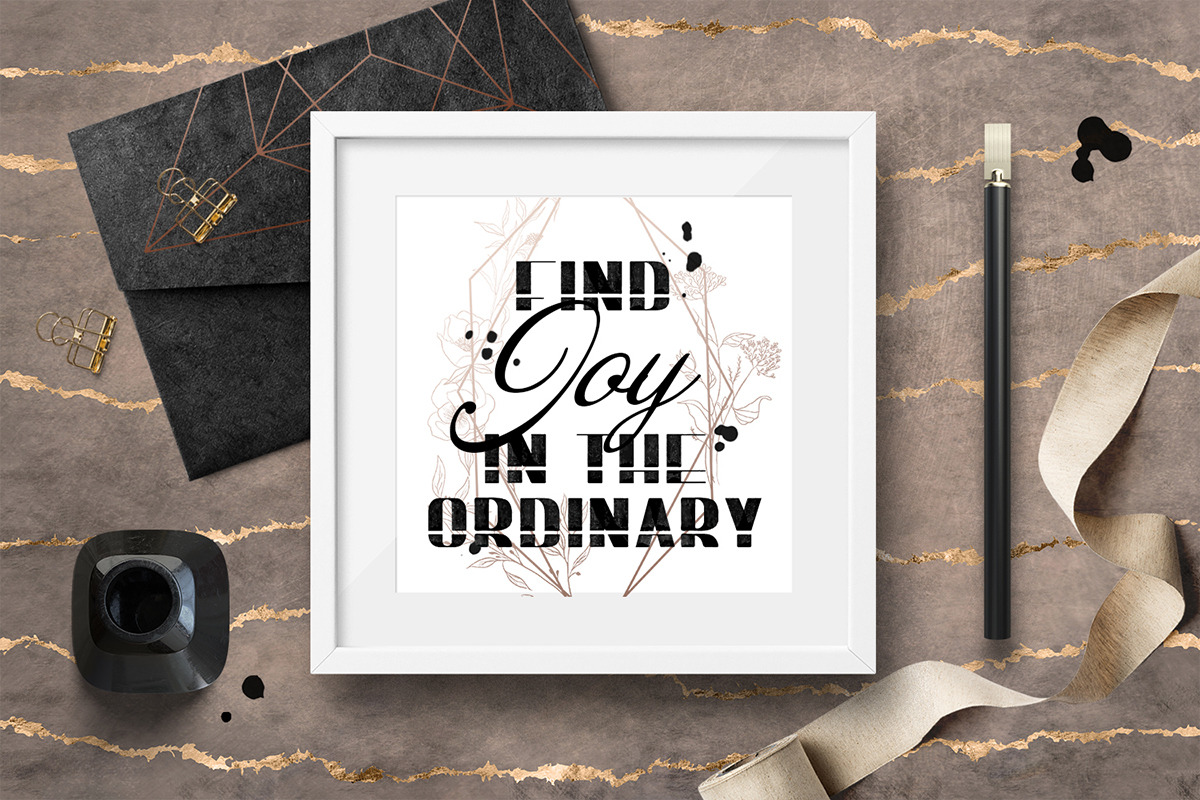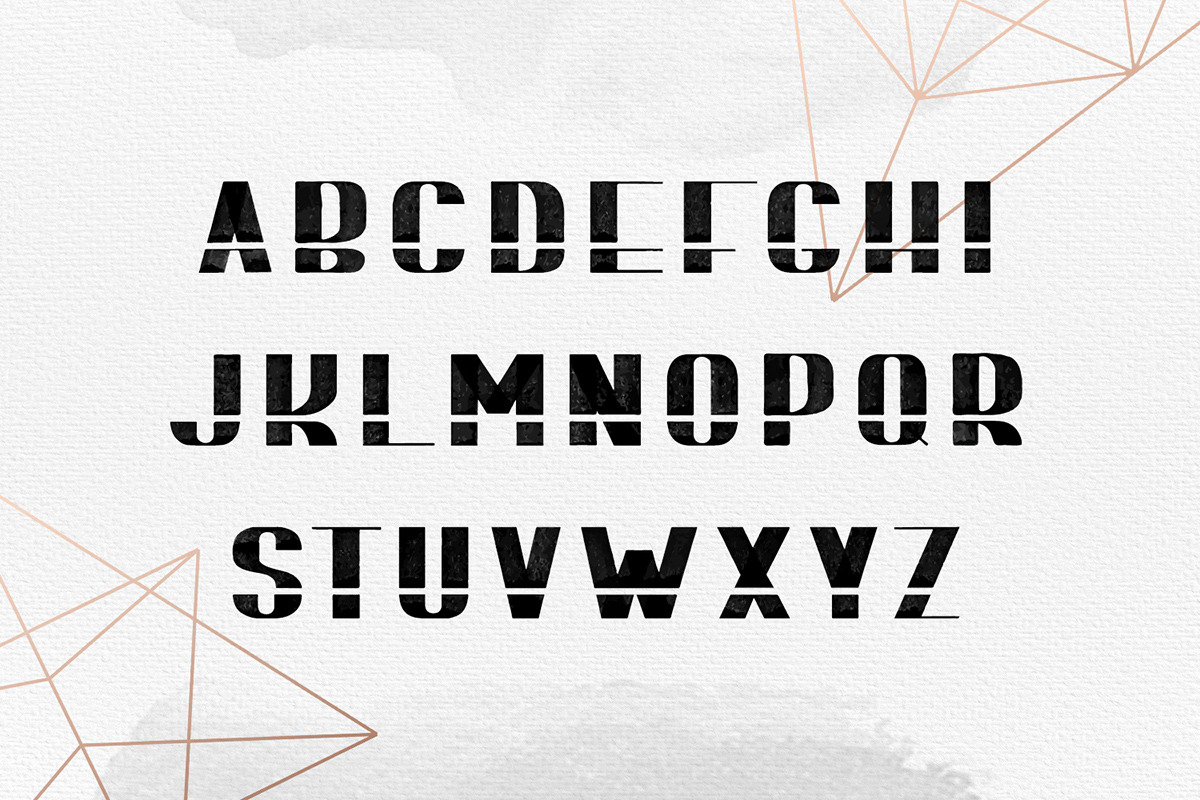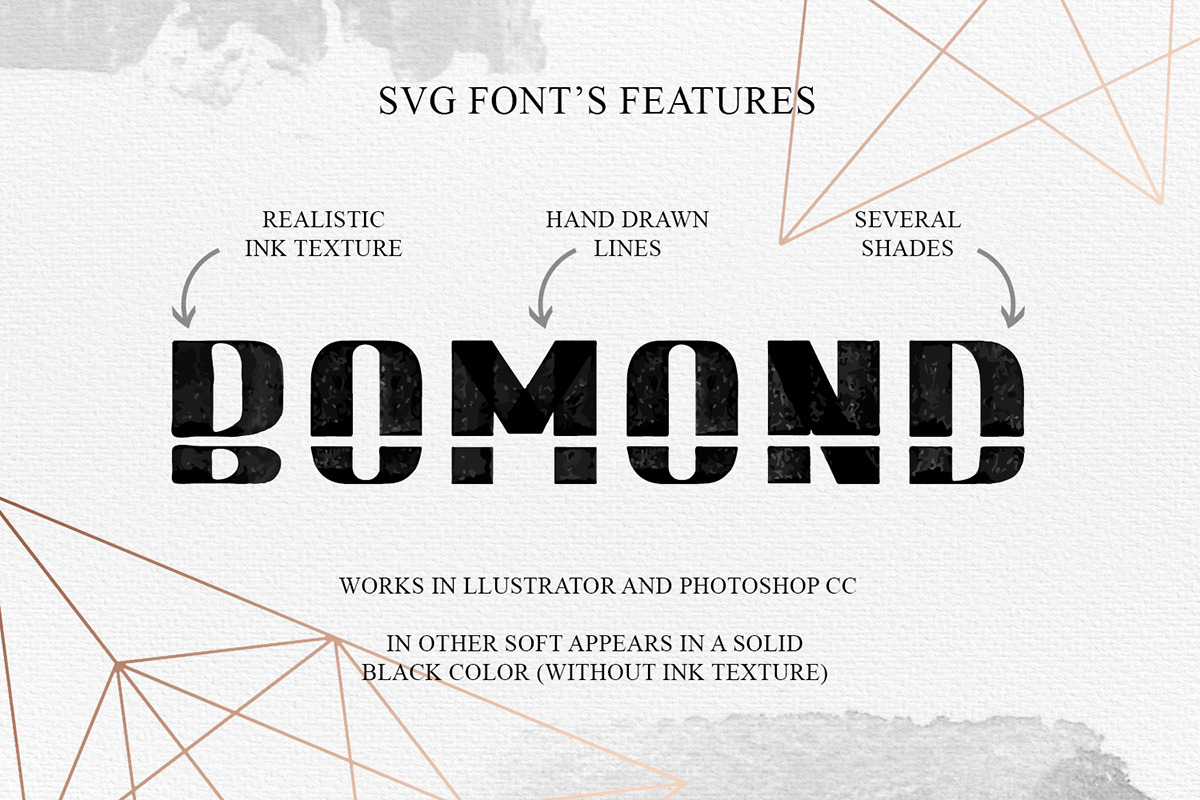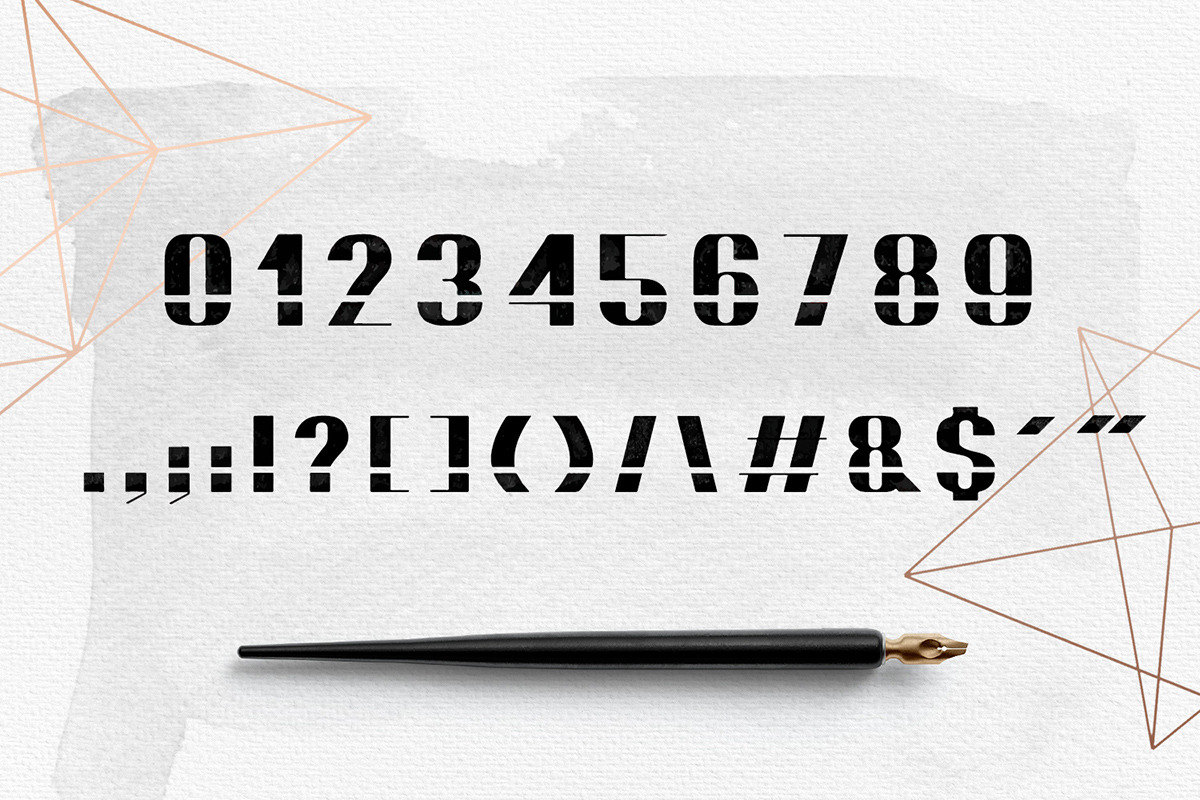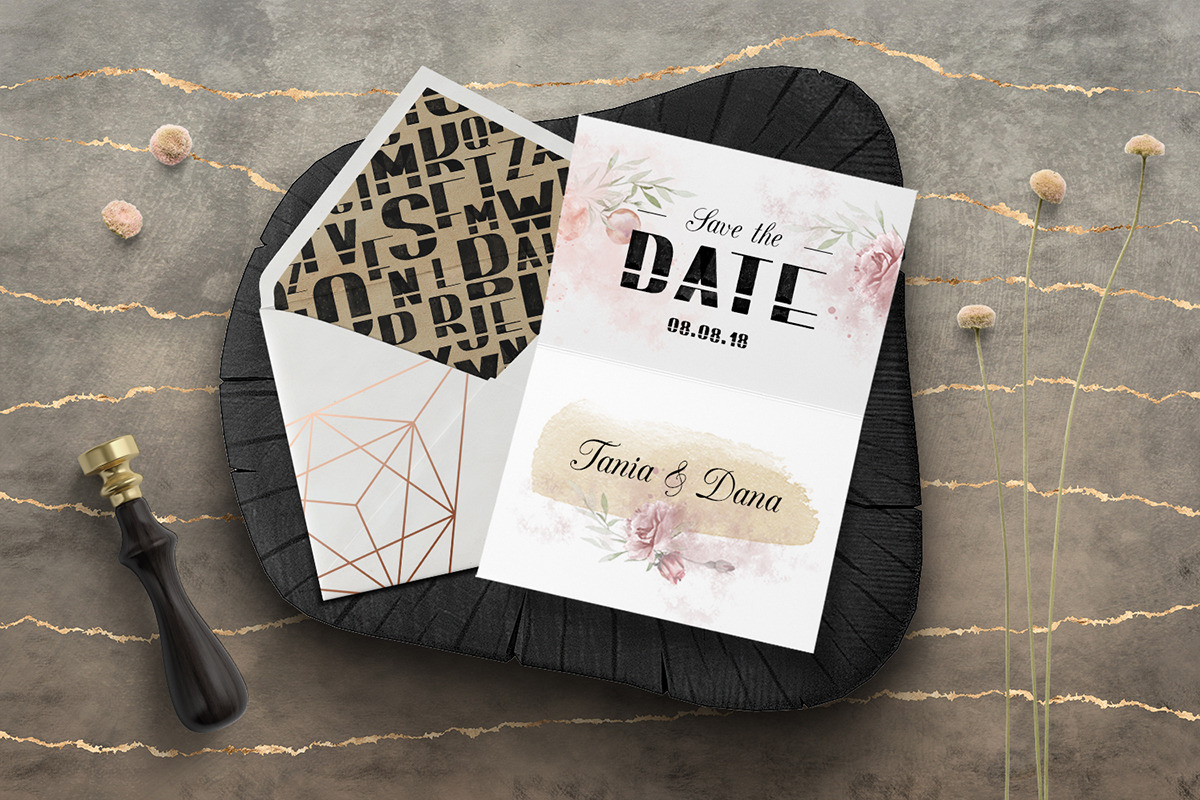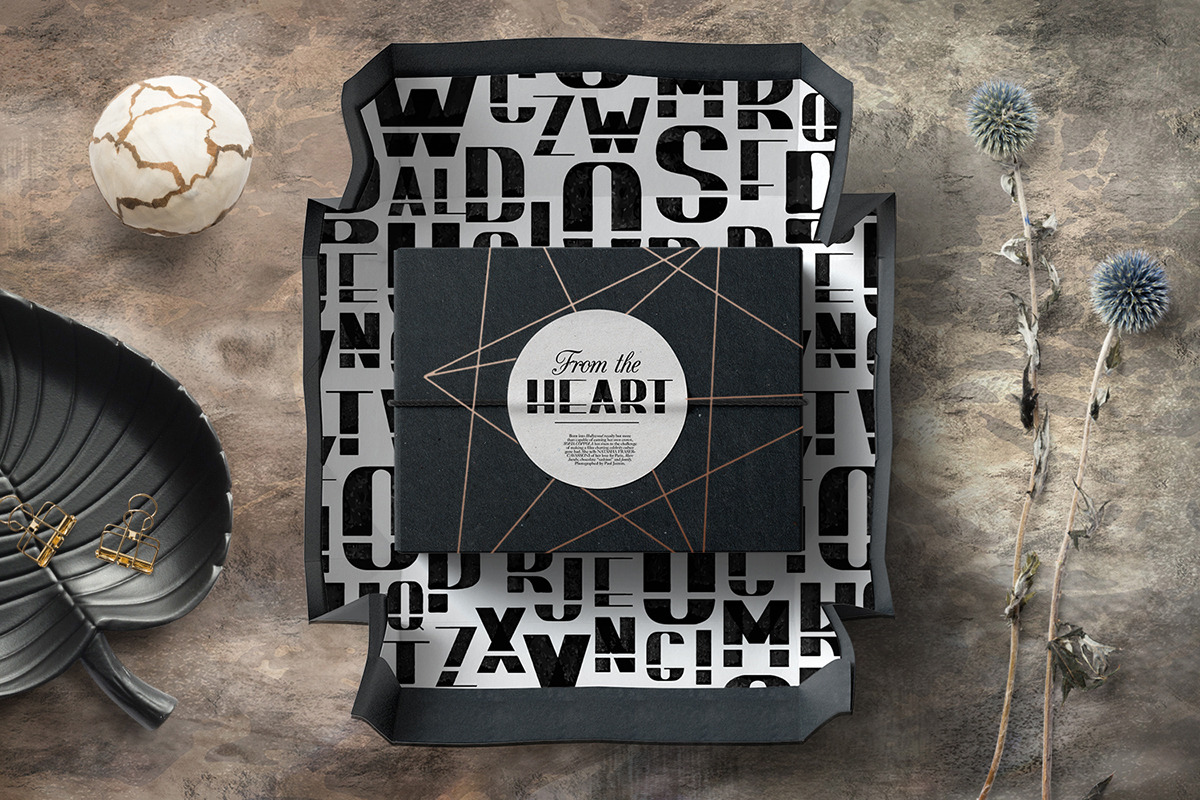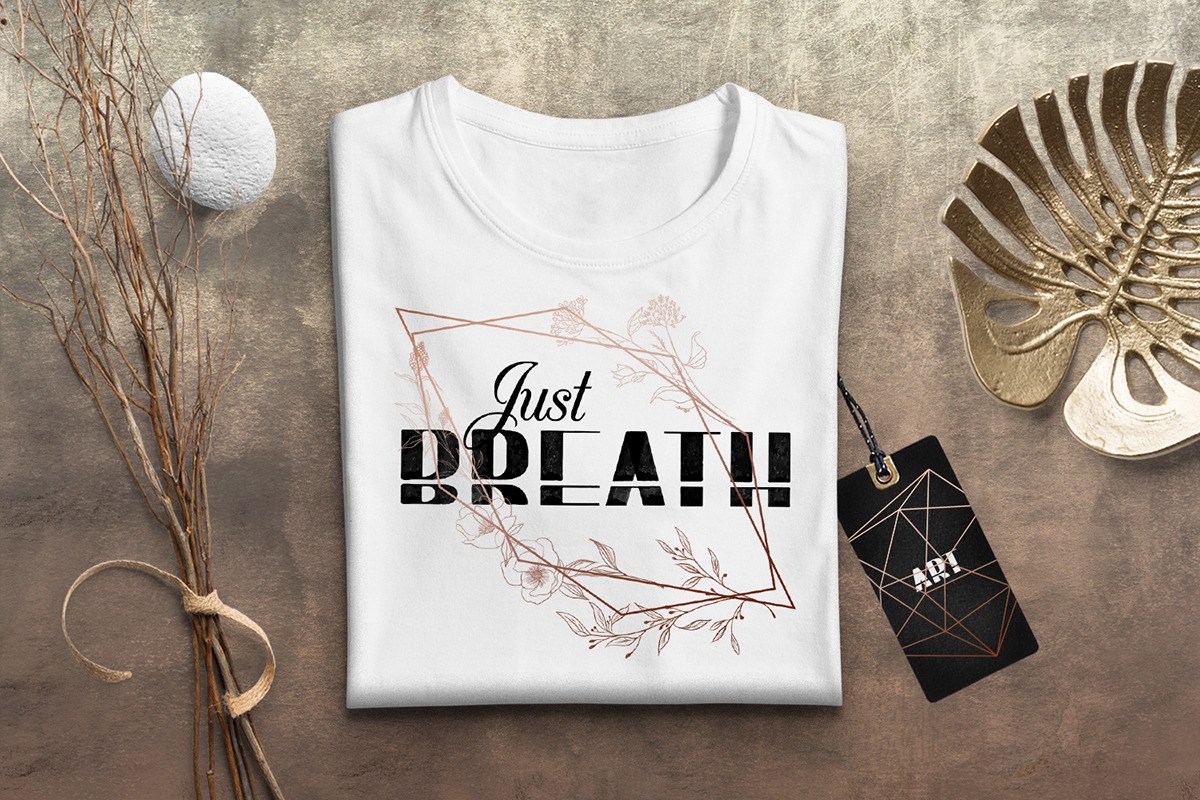
Bomond. Textured Ink Font (SVG)
And today I'm glad to introduce my new handmade textured ink font. This is a display font, which looks like you've just drawn it with a calligraphy pen. It will look great on a wedding invitation, wall poster, t-shirt print, or any other one of your projects.